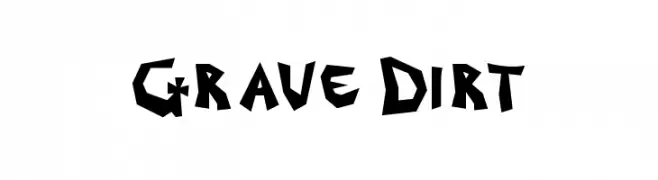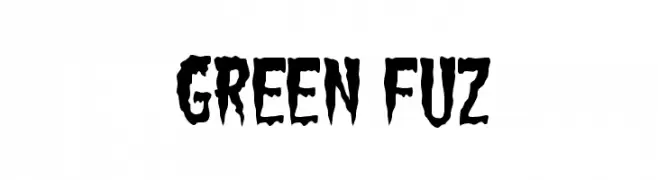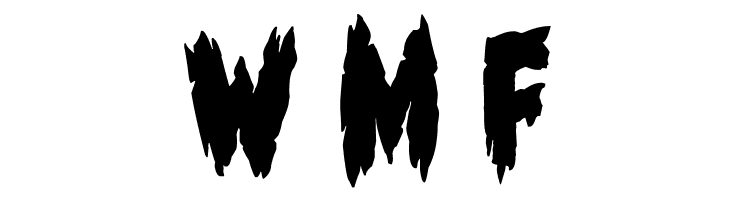
A bold, eerie font with jagged, dripping edges perfect for horror themes.
A jagged, eerie font ideal for horror themes and Halloween designs.
A bold, jagged font with an eerie, horror-inspired design.
A spooky, jagged font ideal for Halloween and horror themes.
A spooky, jagged font ideal for horror themes.
A dripping, eerie font perfect for horror themes.
A bold, dripping font perfect for horror-themed designs.
A bold, dripping font with a horror-themed, decorative style.
A bold, dripping font perfect for horror themes.
A bold, dripping font with a horror-themed style.
A bold, dripping font with a grunge and horror-inspired aesthetic.
A bold, dripping font perfect for horror-themed designs.
A bold, distressed font with a dripping ink effect, perfect for grunge or horror themes.
A bold, dripping font with a spooky, horror-themed design.
A bold, horror-themed font with dripping, blood-like effects.
A bold, dripping font with a horror-themed, decorative style.
A bold, horror-themed font with a dripping effect for a spooky vibe.
A bold, dripping font with a horror-themed aesthetic.
A bold, jagged font with a dripping, horror-themed design.
A jagged, horror-themed font with rough, textured characters.
A dripping, horror-themed font with a bold, eerie style.
A bold, horror-themed font with jagged, thorn-like details and a gothic style.
A bold, dripping font ideal for horror themes and Halloween designs.
A bold, dripping font with a horror-themed aesthetic.
A bold, jagged font with a horror-themed, distressed appearance.
A bold, jagged font with a horror-themed, distressed aesthetic.
A bold, jagged font with a horror-themed, distressed style.
A bold, jagged font with a shadow effect, perfect for horror-themed designs.
A bold, jagged font with a horror-inspired, torn appearance.
A bold, dripping font perfect for horror or Halloween themes.
A spooky, dripping font perfect for horror themes.
A bold, dripping font with a horror-themed aesthetic.
A bold, dripping font perfect for horror-themed designs.
A dripping, horror-themed font ideal for spooky designs.
A bold, spooky font with jagged, dripping characters ideal for horror themes.